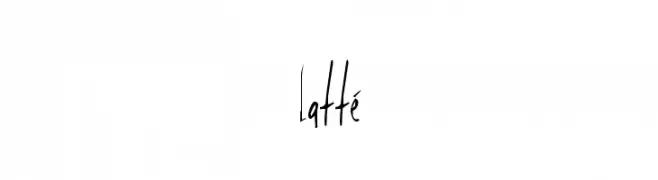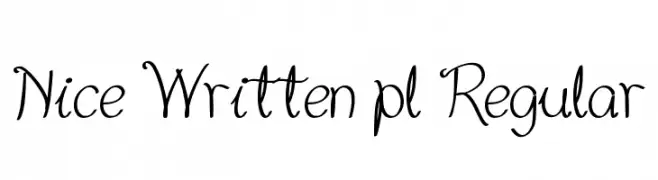
( Fonts by Graham Meade - GemFonts )
A whimsical, cursive-like font with elegant curves and a playful style.
( Fonts by Graham Meade - GemFonts )
An elegant, oblique font with a calligraphic influence and flowing style.
( Fonts by Juan Casco - www.juancasco.net )
A dynamic, edgy handwritten font with sharp, angular strokes.
( Fonts by Heather T. - oohlalaartsy.blogspot.com )
A tall, narrow, hand-drawn font with a unique and artistic style.
( Fonts by Manfred Klein - manfred-klein.ina-mar.com )
A playful, hand-drawn font mimicking children's handwriting.
( Fonts by David Rakowski )
A tall, narrow, and modern font with an elegant and sophisticated style.